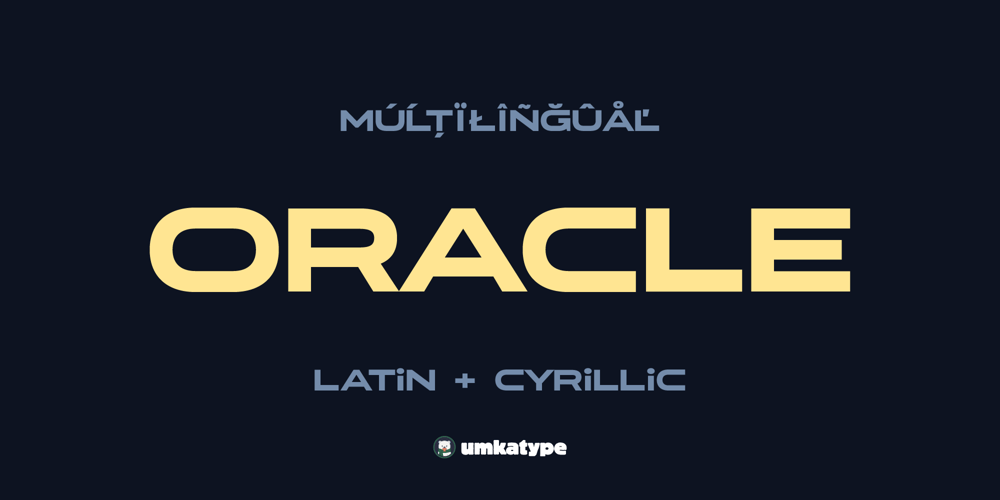
Oracle Font Family was designed by Alper Çakıcı and published by Umka Type. Oracle contains 1 styles and family package options. Introducing our versatile and globally inclusive geometric sans serif font: ORACLE! With support for an extensive range of languages including Belarusian, Bosnian, Bulgarian, Chechen, Macedonian, Russian, Serbian, Ukrainian, Afrikaans, Albanian, Asu, Basque, Bemba, Bena, Breton, Catalan, Chiga, Colognian, Cornish, Croatian, Czech, Danish, Dutch, Embu, English, Esperanto, Estonian, Faroese, Filipino, Finnish, French, Friulian, Galician, Ganda, German, Gusii, Hungarian, Icelandic, Inari Sami, Indonesian, Irish, Italian, Jola-Fonyi, Kabuverdianu, Kalenjin, Kamba, Kikuyu, Kinyarwanda, Latvian, Lithuanian, Lower Sorbian, Luo, Luxembourgish, Luyia, Machame, Makhuwa-Meetto, Makonde, Malagasy, Maltese, Manx, Meru, Morisyen, Northern Sami, North Ndebele, Norwegian Bokmål, Norwegian Nynorsk, Nyankole, Oromo, Polish, Portuguese, Quechua, Romanian, Romansh, Rombo, Rundi, Rwa, Samburu, Sango, Sangu, Scottish Gaelic, Sena, Serbian, Shambala, Shona, Slovak, Soga, Somali, Spanish, Swahili, Swedish, Swiss German, Taita, Teso, Turkish, Upper Sorbian, Uzbek (Latin), Volapük, Vunjo, Walser, Welsh, Western Frisian, and Zulu, this font ensures your message resonates across diverse cultures and regions. Its clean lines and modern design make it ideal for a wide range of applications, from sleek corporate branding to contemporary digital projects. Embrace the power of linguistic diversity with this font, bridging communication gaps effortlessly.